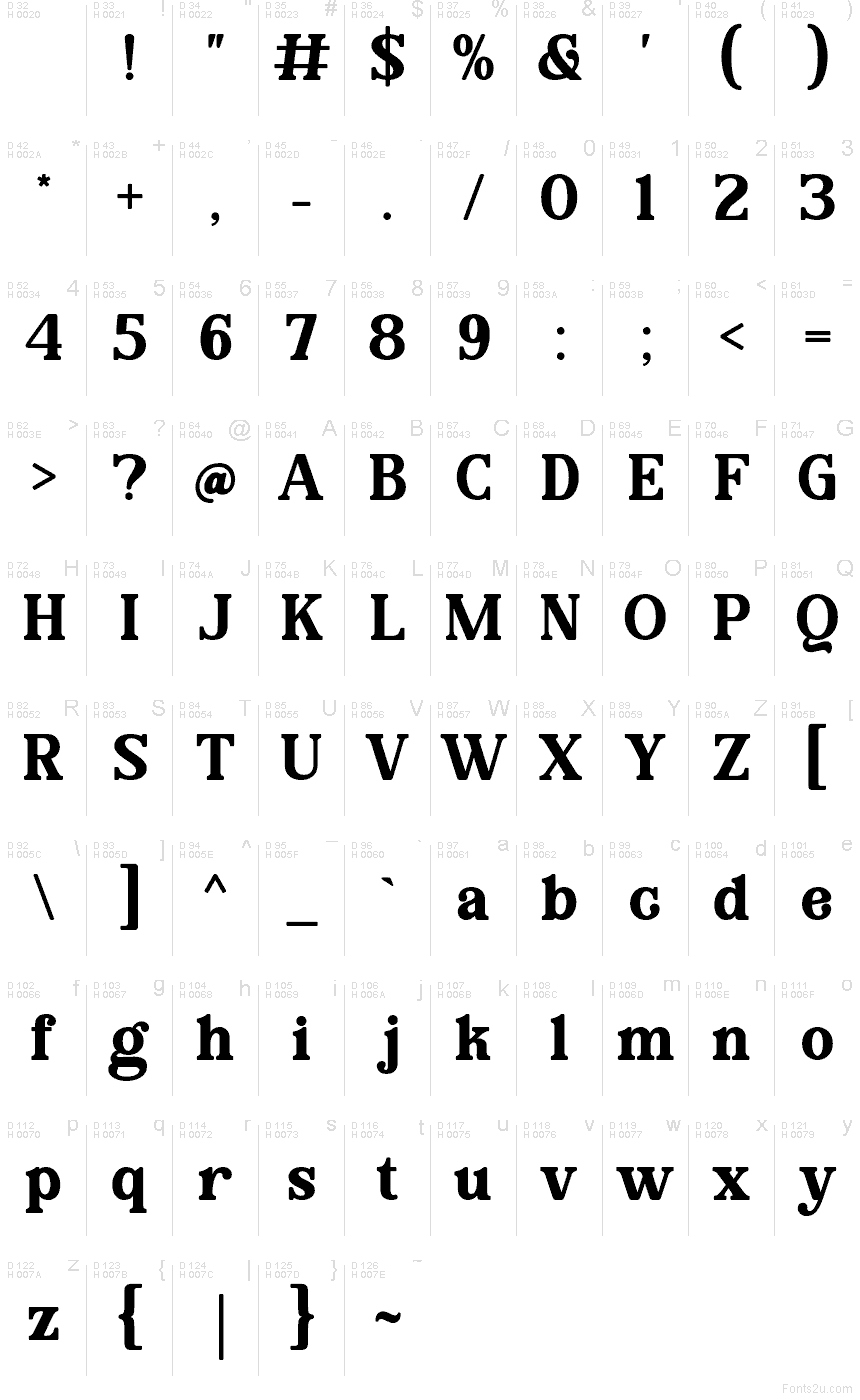
Hanela Rusty
Hanela Rusty font by Burhan Afif of HansCo Studio brings a sturdy, old-letterpress charm—thick strokes, weighty serifs, and a slightly worn, inky feel that reads like it’s been stamped onto paper a thousand times. It is a free vintage serif font, and the typeface’s confident rhythm keeps headlines loud without turning messy.
Using Hanela Rusty works beautifully for craft beer labels, café menus, poster titles, book covers, badge logos, packaging, and band merch. Set it a touch loose on spacing and let it run big for maximum bite; pair it with a clean grotesk sans for body copy so the grit stays the star in this free font.